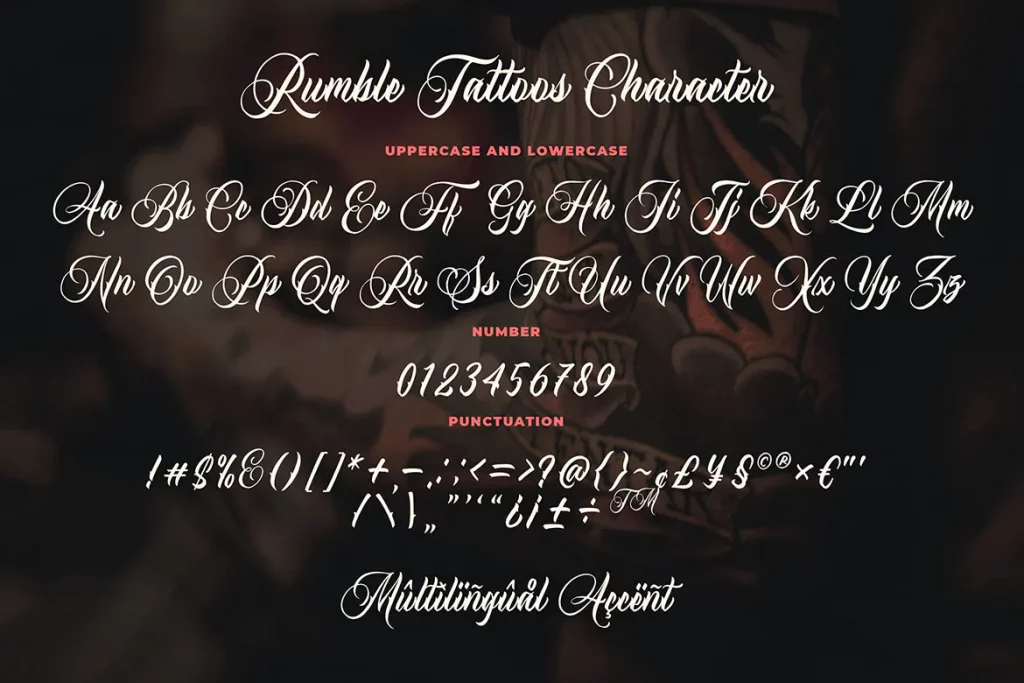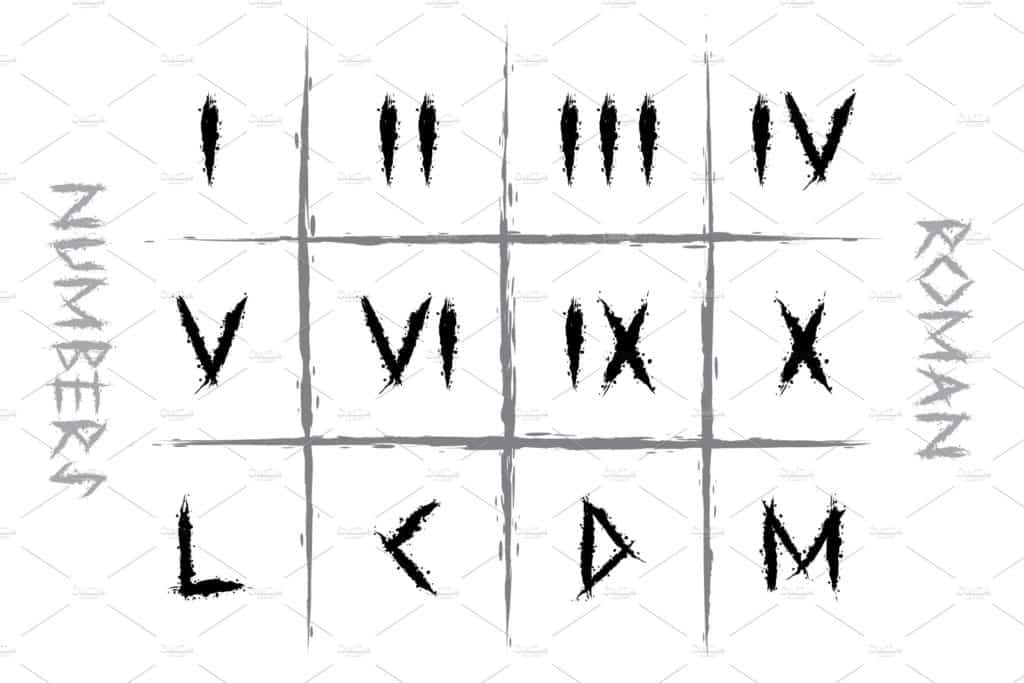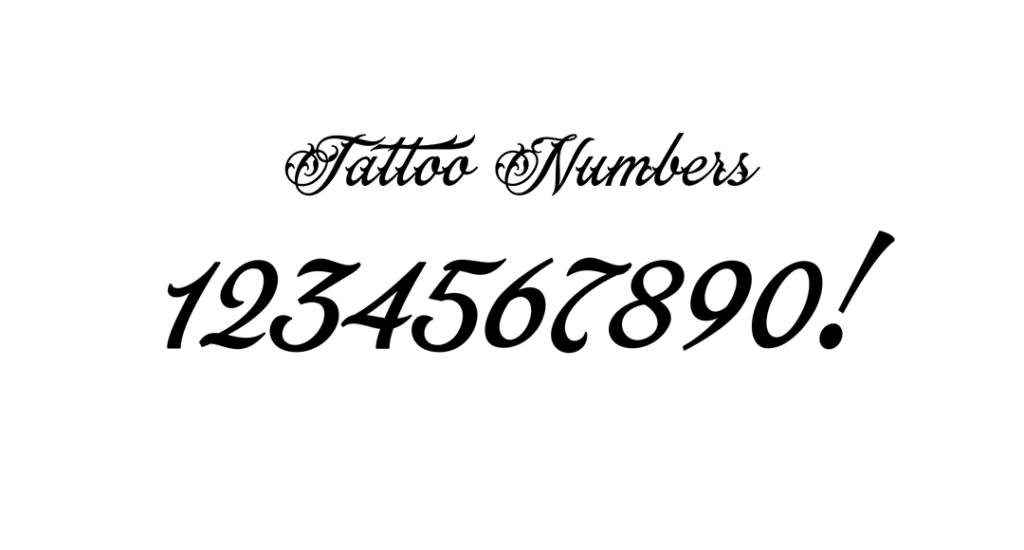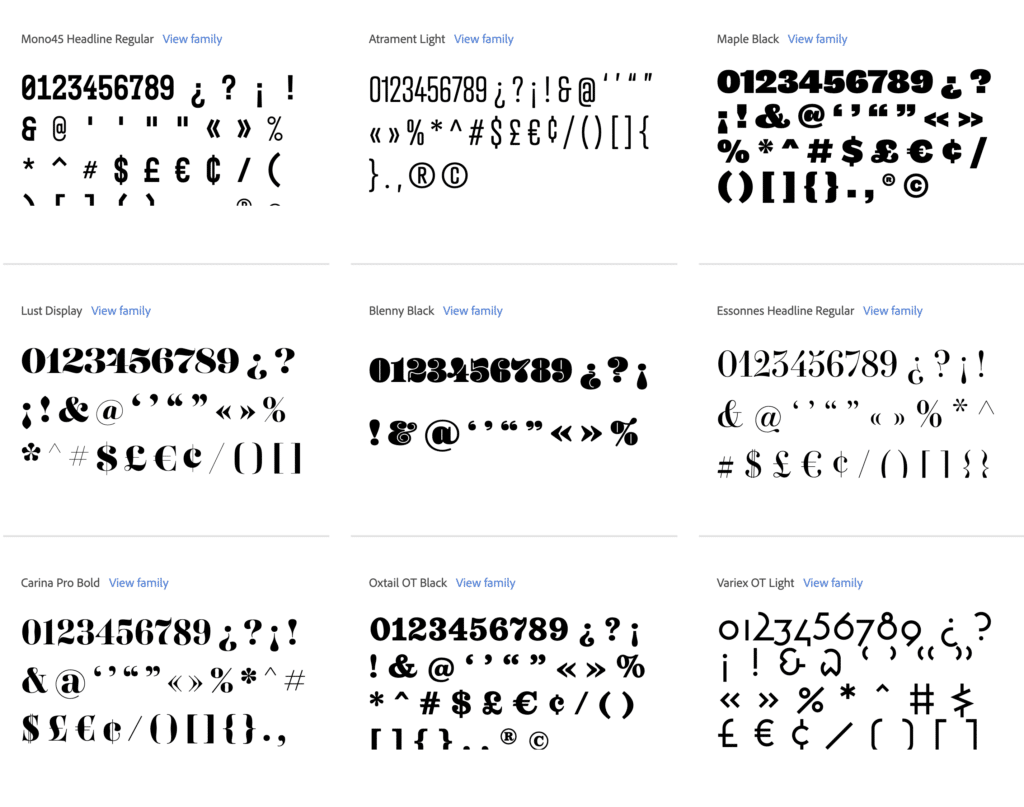
If you’re in the market for the best tattoo number fonts and looking to create meaningful tattoo typeface designs, this feature is for you!
Tattoos never go out of style. So whatever the era, season, and style trend, best believe that tattoo-inspired designs and aesthetics will thrive regardless.
Whether you’re designing a fictional tattoo on the arm of a person, working with professional tattoo artists, or whipping out a vision board for graphic design projects, or for a client you’re pitching an idea to, the best tattoo number fonts on this list are sure to help!
From decorative black letter font options to fancy digitized fonts, these selections will help you create custom designs that stand out.
10 Best Tattoo Number Fonts for Stylish Tattoos
- Granberg – Modern Blackletter Font
- Luxus Gothic
- Strong West
- Incognito Tattoo Font
- Alevantre
- Malekith – Tattoo font
- Stopher – Blackletter Font
- Rumble Tattoos
- Strong Rumble
- Runic Roman Numbers
- Adobe Numbers Font Pack (BONUS)
38+ Best Number Font Tattoos for Stylish Tattoos
1. Granberg – Modern Blackletter
One of the newer tattoo-inspired blackletter typefaces we instantly fell in love with is Modern Blackletter.
Packing just the right amount of spunk and attitude, this font bundle is legible, functional, and a treat to the eyes, making it a perfect tattoo font.
We also found the depiction of #4 here to be incredibly unique, in that its leg is overtly curved to the right as opposed to just falling straight down. It’s perfect for plenty of design projects including skin art, but we’d especially recommend this stylish blackletter font for posters, signage, and headlines.
2. Luxus Gothic
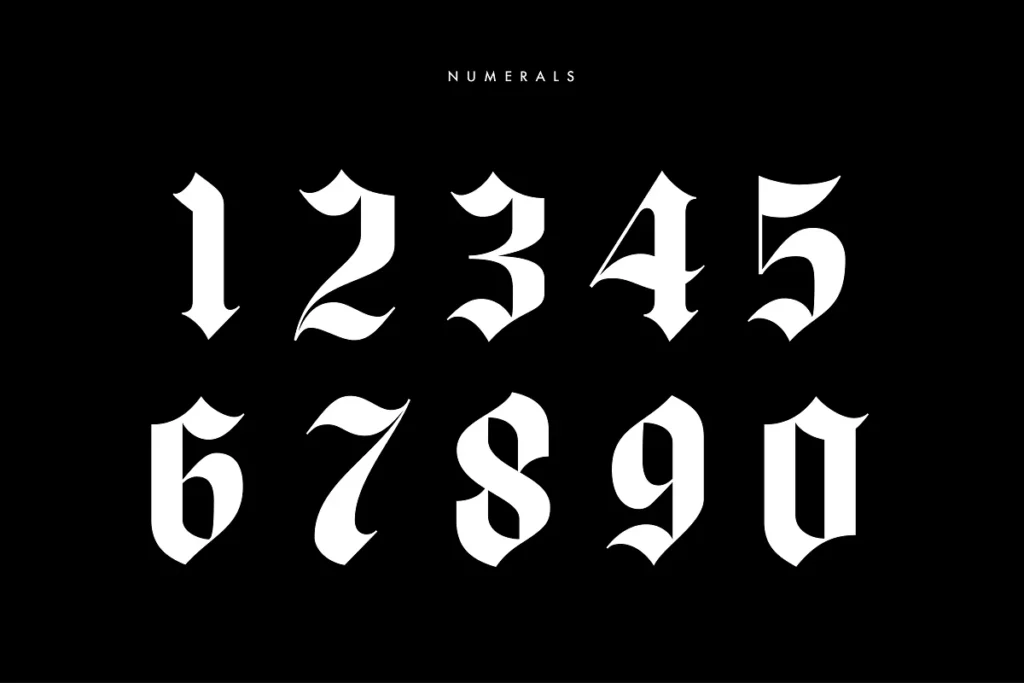
Luxus Gothic does a tremendous job of being both playful and true to its source inspiration—the blackletter tattoo aesthetic. Sporting calculated curves and sharp edges in all of the right places, this font bundle is easy to read and even easier to appreciate.
It’s fresh, familiar, and functional! We can’t wait to use this set on posters, flyers, signages, and headlines!
Check out the font for the full alphabet as there are some brilliant letters in there, perfect for tattoos.
3. Strong West
Strong West is a popular font for tattoos and numbers, and it’s not hard to figure out why.
Sporting calligraphy-inspired lines and thick structures, this tattoo-like visual solution is striking, beautiful, and an absolute delight to stare at. Its bottom part is shaded, leaving the upper portion light and empty-looking.
Familiar and functional, there’s a lot you can create with this one. If you want, you can even show this to your local tattoo artist and have them mimic it for you!
4. Incognito Tattoo Font
What we like about Incognito Tattoo Font the most is how readable it is!
Featuring sharp edges and spikes between lines, this font bundle does a great job of retaining the familiar tattoo blackletter aesthetic. We especially like how dashingly sharp and playful the zero digit looks here!
You could also use this for marketing materials and social media art cards, because we sure will!
5. Alevantre
Fancy a classy take on tattoo number fonts? Well, let Alevantre deliver. Also commercially legible, this pick strikes a great balance between keeping the tattoo aesthetic memorable, but also retaining an elegant look.
Of the dozens of designs we can maximize this in, we suggest considering it for wedding invitations, headlines, and branding efforts!
6. Malekith – Tattoo font
In a way, Malekith is pretty much like Alevantre as they’re both classy signature-like fonts. However, what we like the most about Malekith is how dramatic its curves and swirls are!
On that note, we also think this pick would make a stellar addition for wedding invitations, marketing materials, and advertising projects!
7. Stopher – Blackletter Font
Is the tattoo number font you’re looking for boxy and stereotypically masculine? We’ll let you in on a secret: Stopher is our favorite in that department!
Donning very strong blackletter elements, this font bundle is oozing with personality! Compared to the rest of its contemporaries, we also like how it’s one of the more legible offerings! Use it for brand designs, headlines, event posters, and more!
What font is used for Roman numeral tattoos?
The best option for Roman numeral tattoos is Runic Roman Numbers. This font highlights bold, edgy characters with a hand-painted feel, making it visually striking for tattoos. While some artists use classic serif fonts, Runic Roman Numbers offers a distinctive tattoo-ready aesthetic for Roman numeral designs.